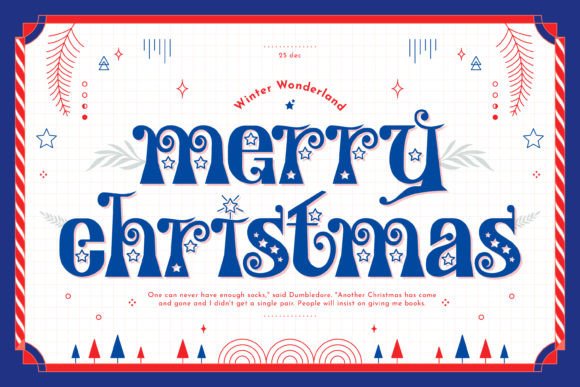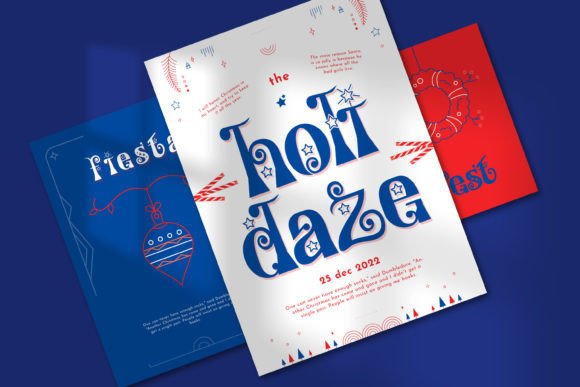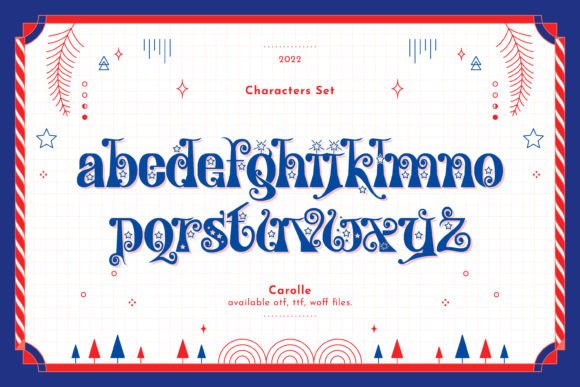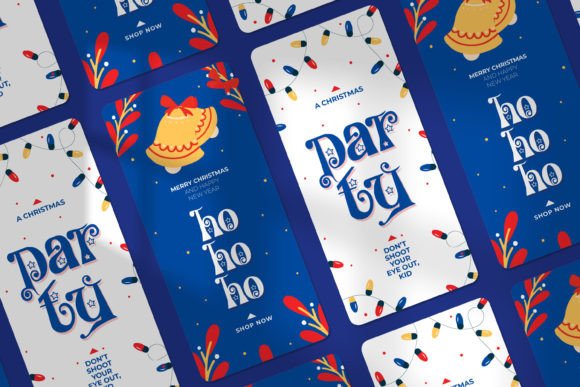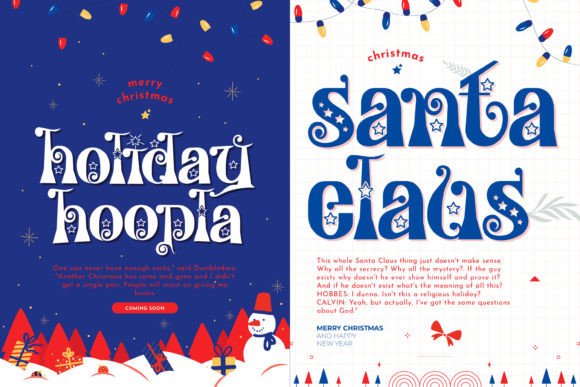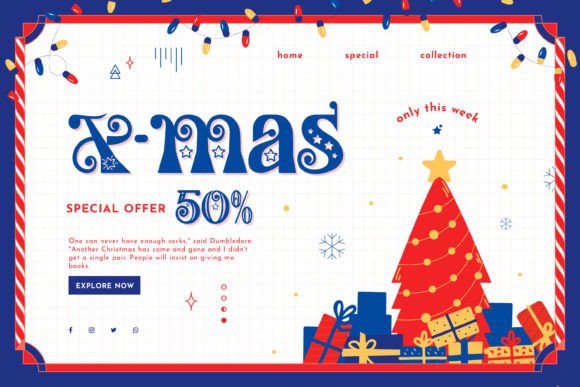
The Magical World of Carolle Font: A Designer’s Delight
I’ll never forget the moment I stumbled upon the Carolle font while working on a whimsical storybook project. My client wanted a design that would transport readers to a magical world, but I was struggling to find the perfect font to match the project’s playful yet sophisticated vibe. That’s when I discovered Carolle, a beautiful lowercase decorative font that instantly captured the essence of what I was trying to create.
- ✨ Whimsical yet sophisticated: Carolle strikes the perfect balance between playfulness and elegance, making it ideal for a wide range of design projects.
- ✅ Ease of use: This font is incredibly easy to work with, even for those who are new to design or typography.
- 💫 Versatility: From storybook covers to fashion labels, Carolle can be used on various design materials, including logos, business cards, and product packaging.
While Carolle is an amazing font, there are a few quirks to keep in mind:
- 🤔 Limited uppercase letters: As a decorative lowercase font, Carolle doesn’t have a full set of uppercase letters. This might limit its use in certain projects that require a more traditional title case.
- ⚠️ Glyph limitations: While Carolle has a range of glyphs and stylistic alternates, it might not have every special character or symbol you need. Be sure to check the font’s capabilities before committing to a project.
The Story Behind Carolle Font
Carolle font was designed with the intention of creating a whimsical yet sophisticated typeface that would inspire designers to create magical designs. While the actual design process and inspiration behind Carolle might be shrouded in mystery, it’s clear that the font’s creator aimed to craft a unique and versatile typeface that would delight designers and audiences alike.
| What type of projects is Carolle font best suited for? | Carolle font is perfect for designs that require a whimsical yet sophisticated touch, such as storybook covers, kids-related product packaging, logos, business cards, and fashion labels. |
| Is Carolle font suitable for body text? | While Carolle font is beautiful, it’s primarily designed for display purposes. It’s best used for headings, titles, and short paragraphs, rather than long blocks of body text. |